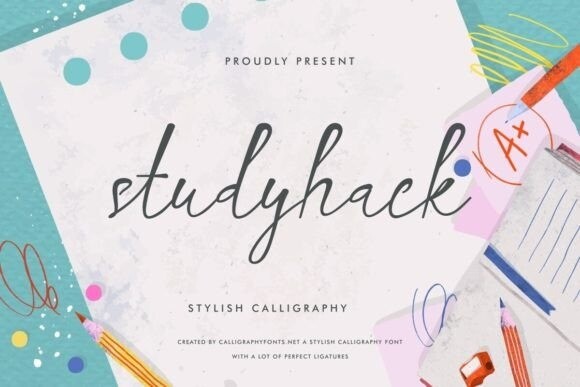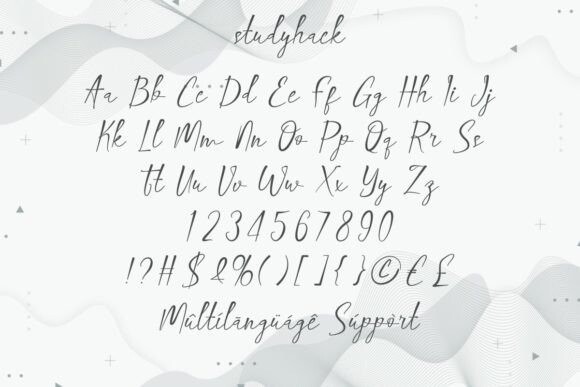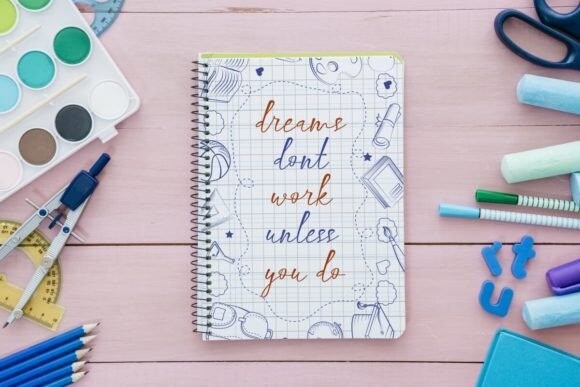
Studyhack Font
Studyhack Font is a casual ink pen calligraphy font with simple lines and balanced thickness that brings elegance and timelessness to your designs. This font will complement your creative projects, such as billboards, covers, labels, packaging designs, invitations, business cards, titles, watermarks and so much more.